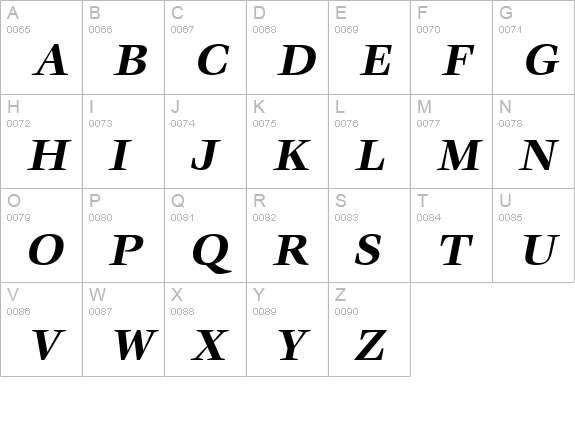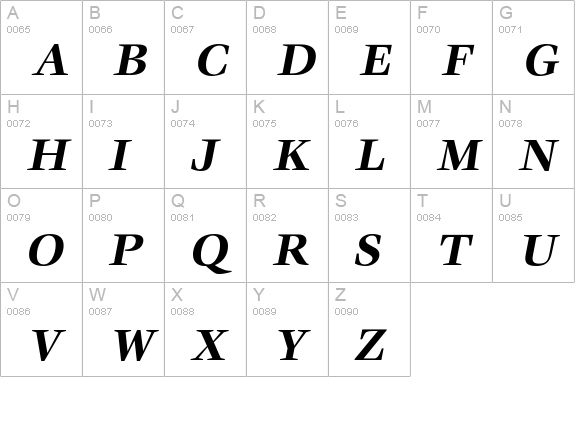
Veljovic Bold Italic is a strong, high-contrast, italic variant in the Veljovic typeface family \xE2\x80\x94 well suited to headlines, attention-grabbing titles, and strong calls-to-action.
Veljovic Bold Italic font is a striking and elegant typeface that exudes confidence and sophistication. Designed by renowned typographer Jovica Veljovic, this font combines boldness with a touch of finesse, making it perfect for a wide range of design projects. With its bold strokes and subtle italics, Veljovic Bold Italic font commands attention and adds a touch of flair to any text. Whether used for headlines, titles, or body text, this font effortlessly catches the eye and adds a sense of authority to your design. One of the most remarkable features of Veljovic Bold Italic font is that it is freely available to download at FontsMarket.com. This means that designers, artists, and enthusiasts alike can easily access and incorporate this stunning font into their projects without any cost. Veljovic Bold Italic font is ideal for branding, advertising, packaging, and editorial design, as well as digital and print media. Its versatility allows it to adapt to various design styles, from contemporary to classic, making it a valuable asset for any creative endeavor. The attention to detail in Veljovic Bold Italic font is evident in its well-balanced letterforms, precise curves, and overall aesthetic appeal. Each character has been meticulously crafted to ensure legibility and readability, even at smaller sizes. Whether you are designing a logo, creating a poster, or working on a website, Veljovic Bold Italic font will elevate your design to the next level. Its bold yet refined nature adds a touch of sophistication and professionalism to any project. In conclusion, Veljovic Bold Italic font is a must-have for designers seeking a bold and elegant typeface that is freely available to download at FontsMarket.com. Its versatility, attention to detail, and timeless appeal make it a valuable addition to any font collection. Embrace the beauty and power of Veljovic Bold Italic font and let your creativity soar.